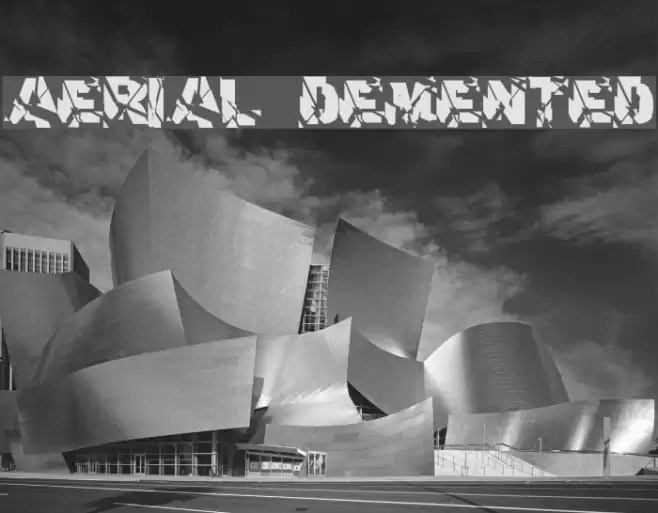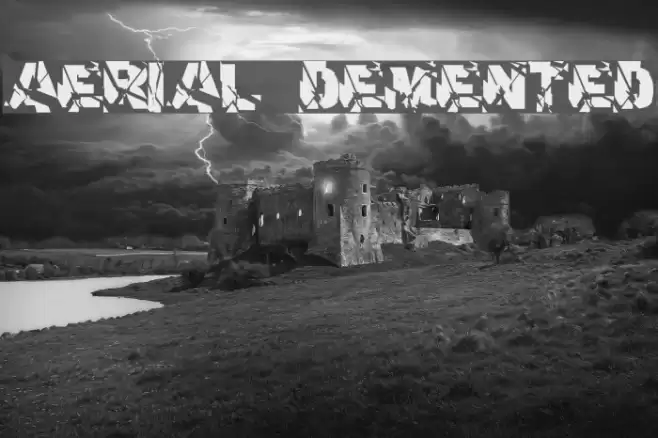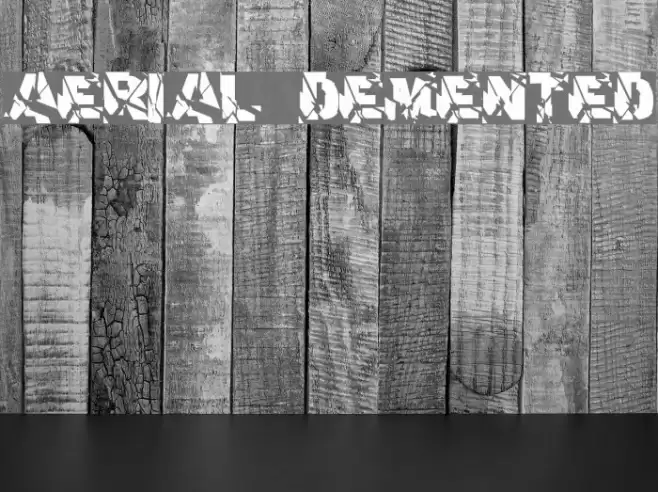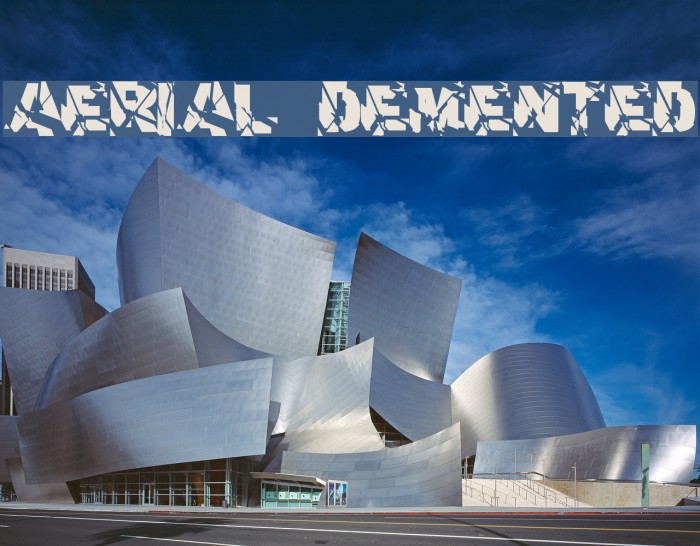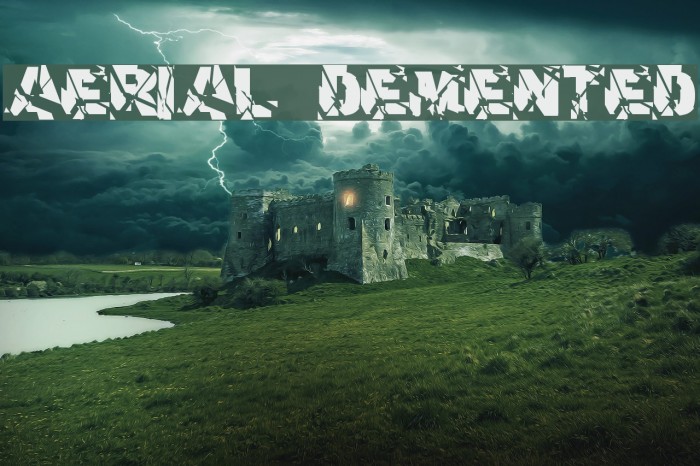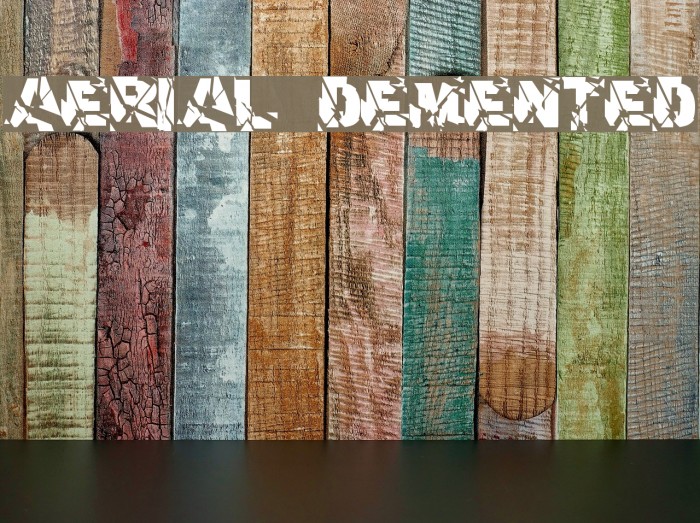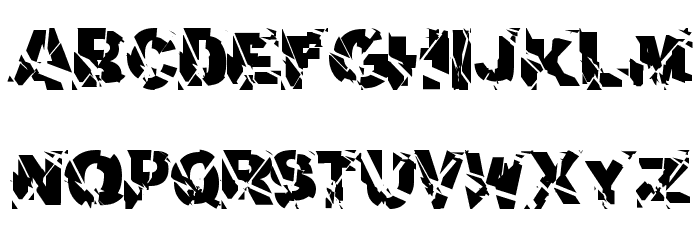
aerial demented Font
aerial demented Description
This font features a highly distressed and fragmented style, creating a chaotic and edgy appearance. The characters are bold and heavily textured, with irregular shapes and jagged edges that give the impression of being shattered or broken. This design choice contributes to a dynamic and visually striking effect, making it ideal for projects that require a sense of urgency or intensity. The font maintains a consistent weight throughout, ensuring readability despite its unconventional appearance. Its unique aesthetic makes it suitable for creative and artistic applications.
A bold, fragmented font with a chaotic and edgy style from Uncategorized fonts.
- Proposed Projects: Album covers, movie posters, graffiti art, urban-themed designs, and event flyers.
- Overall Style: Modern, Edgy